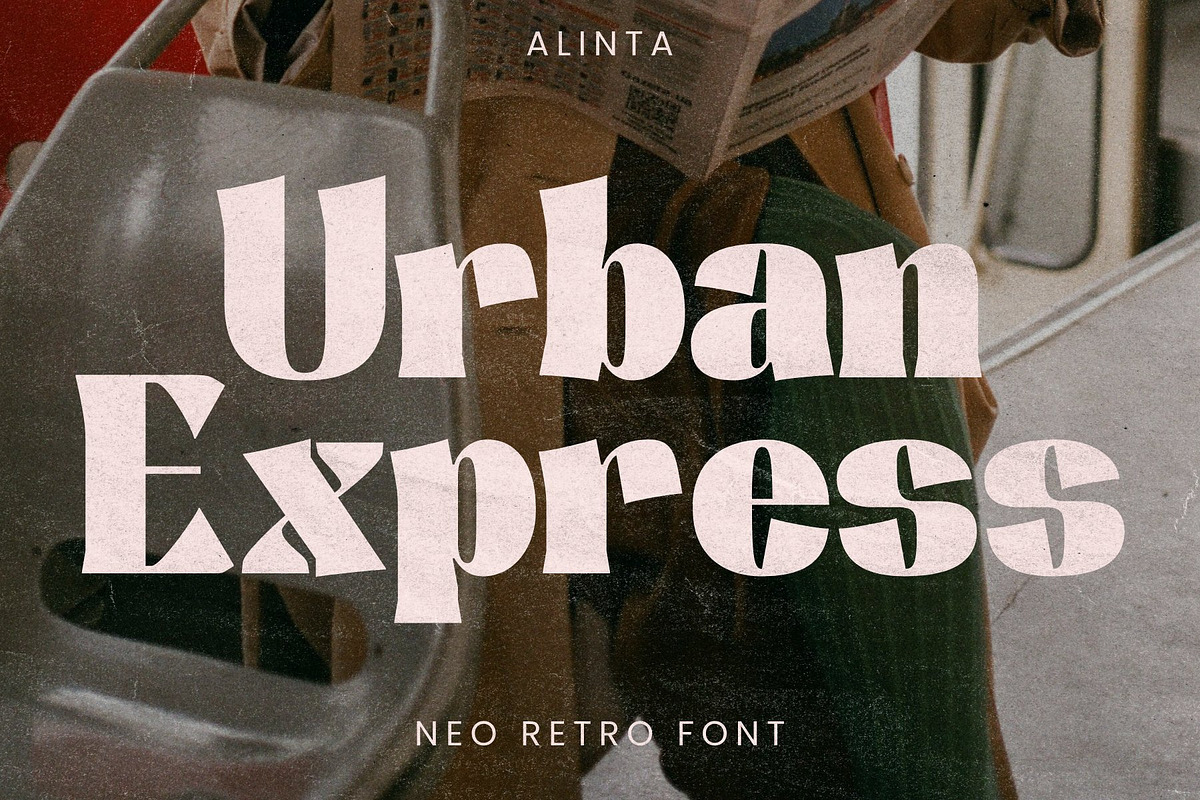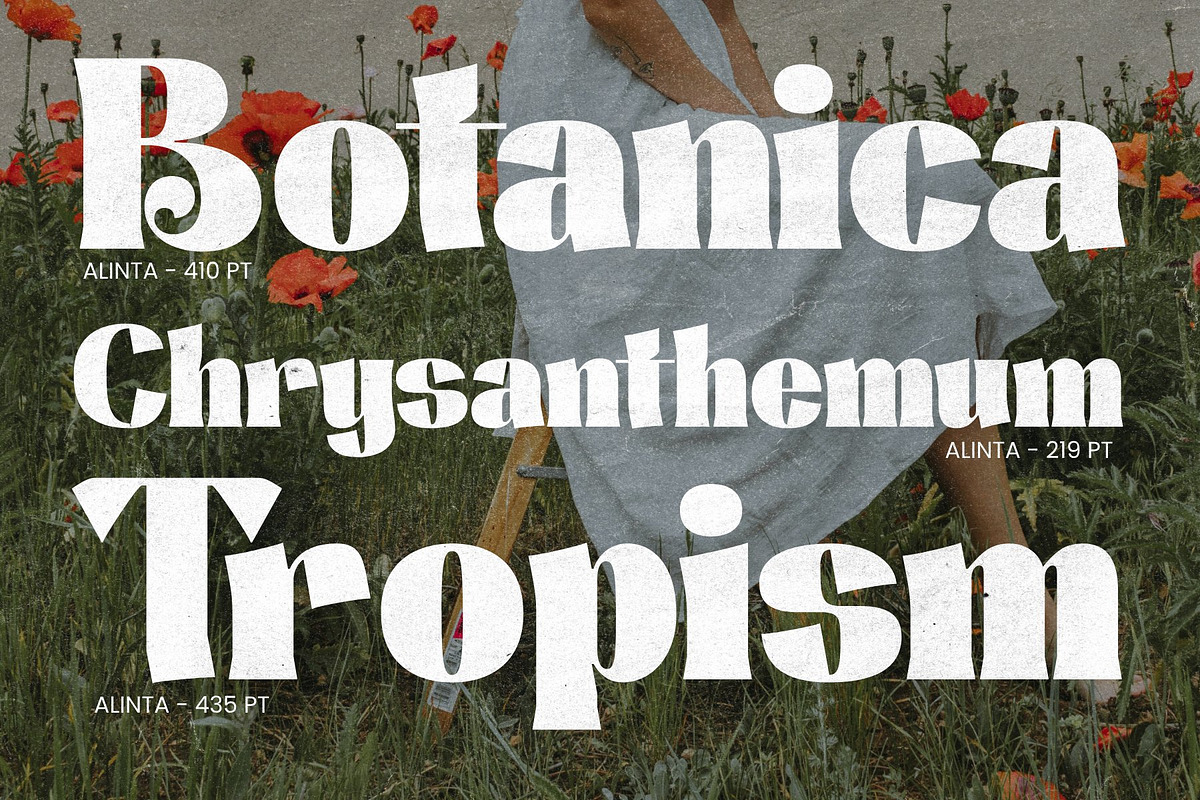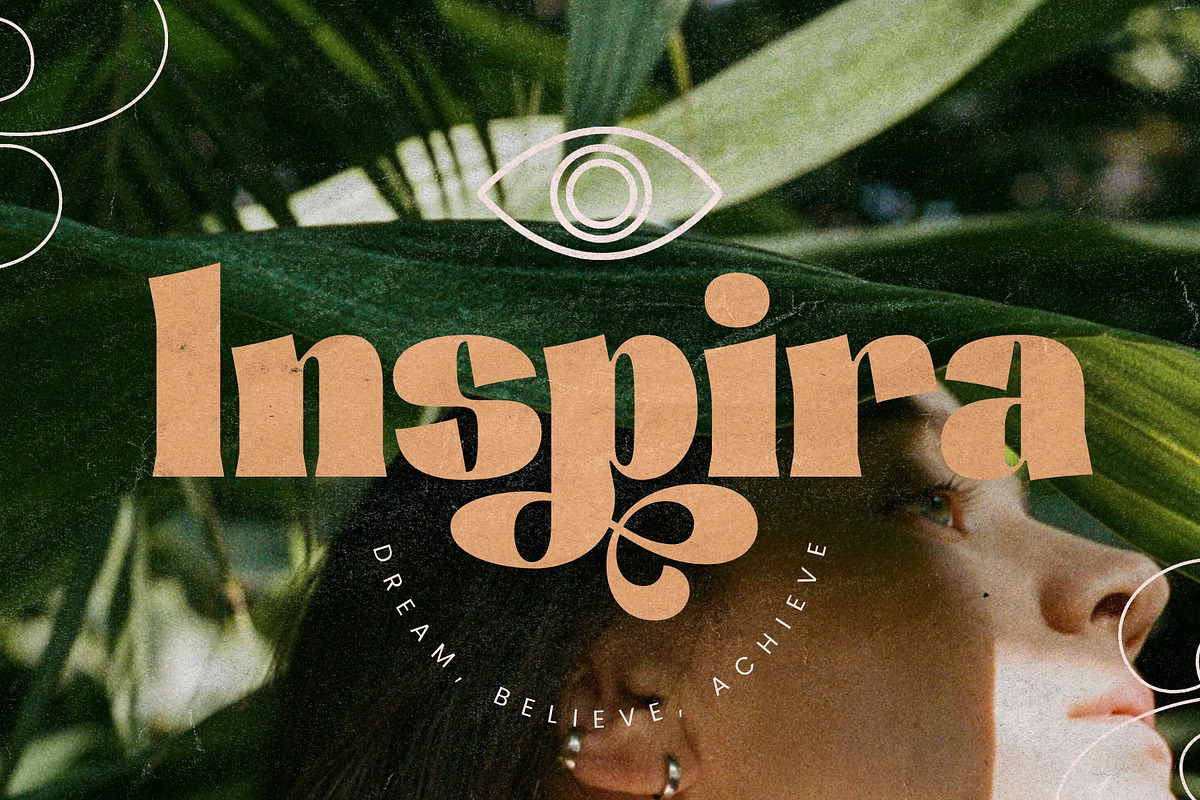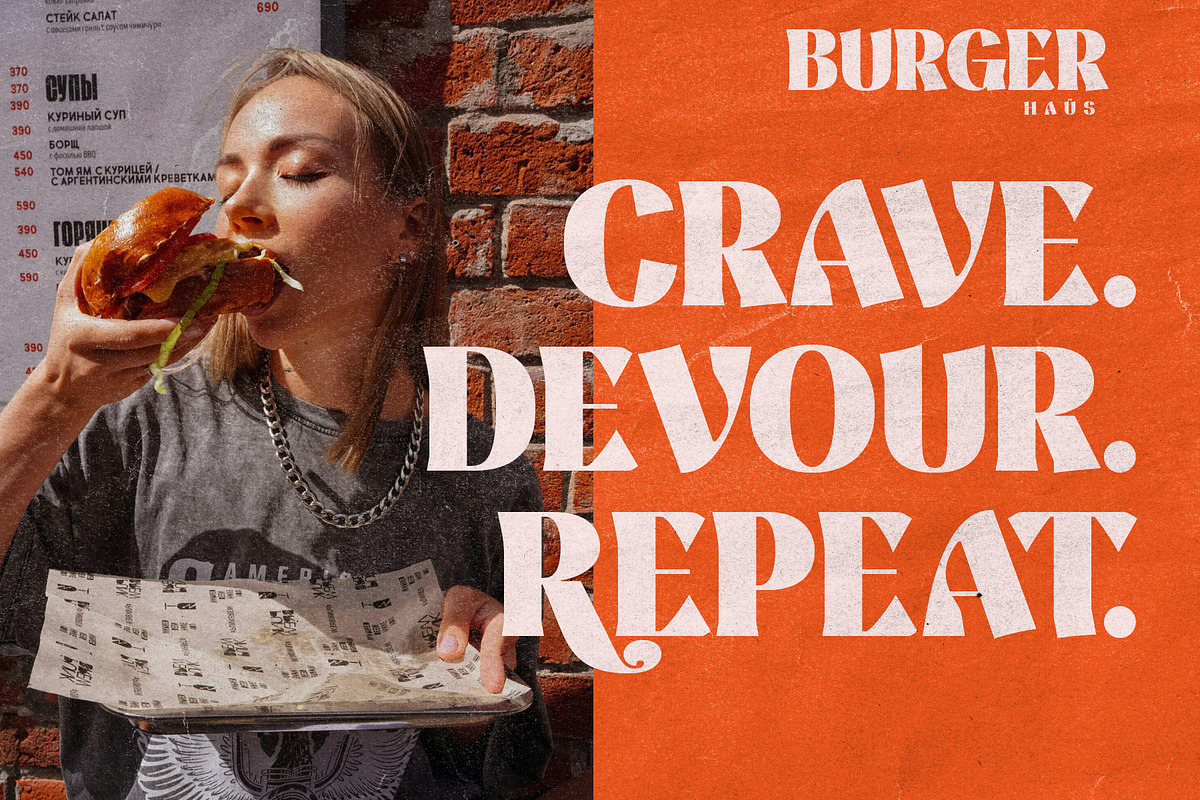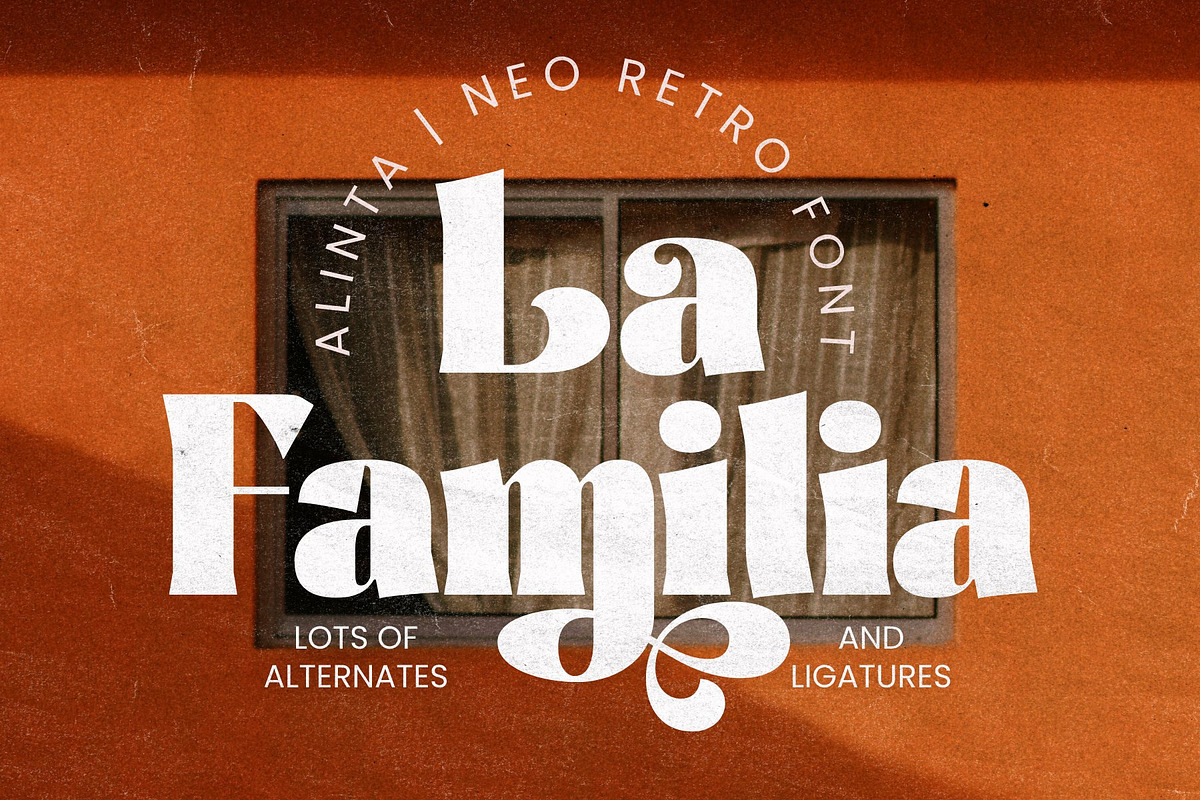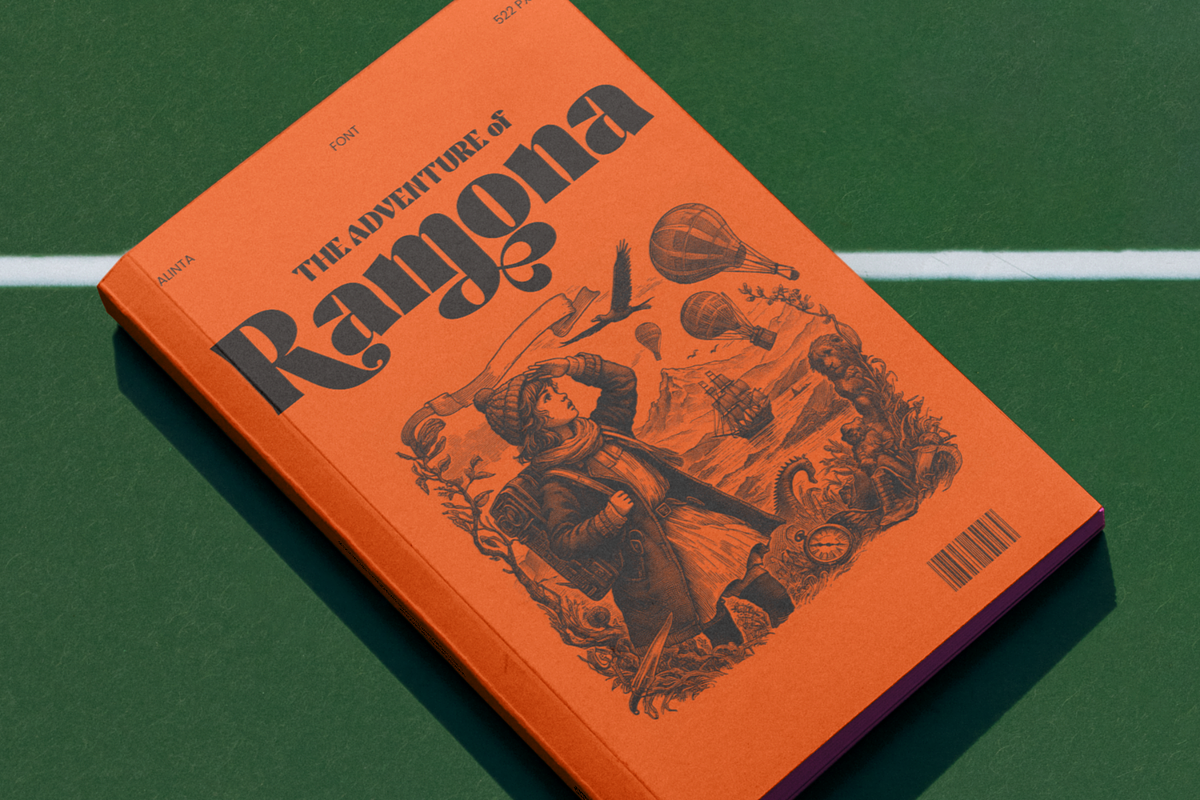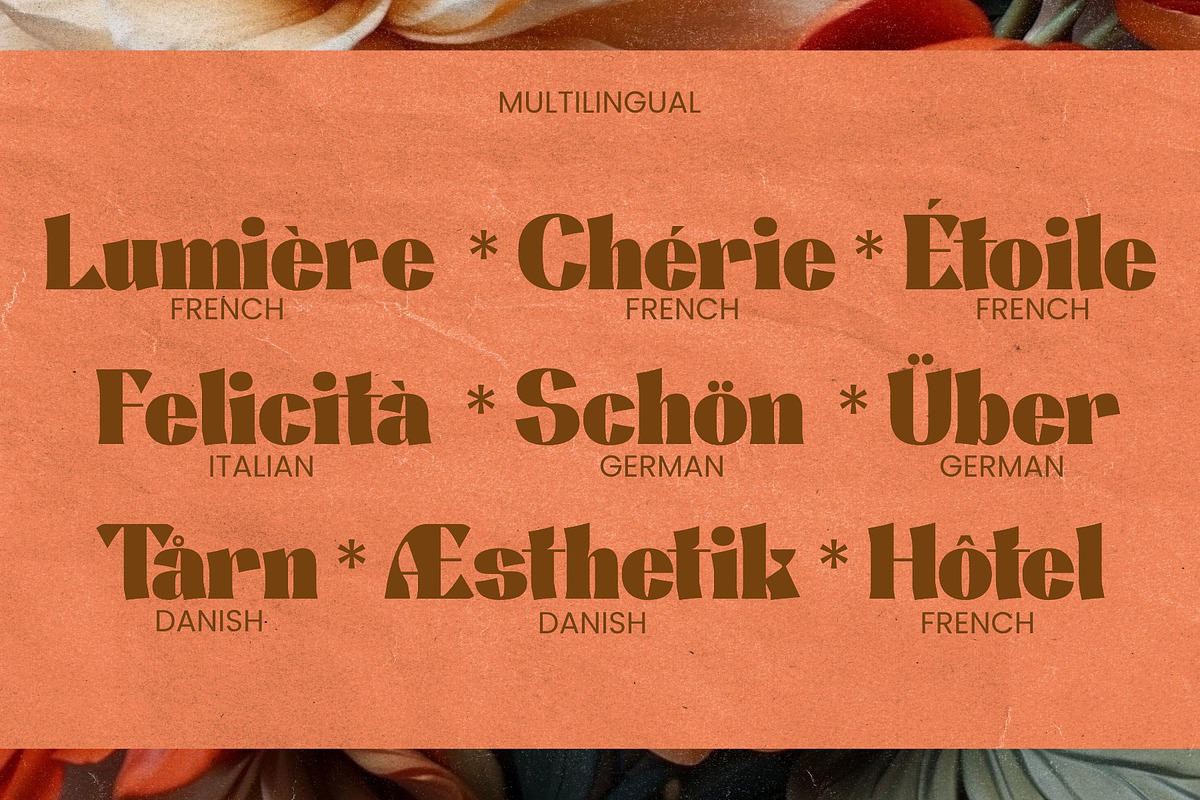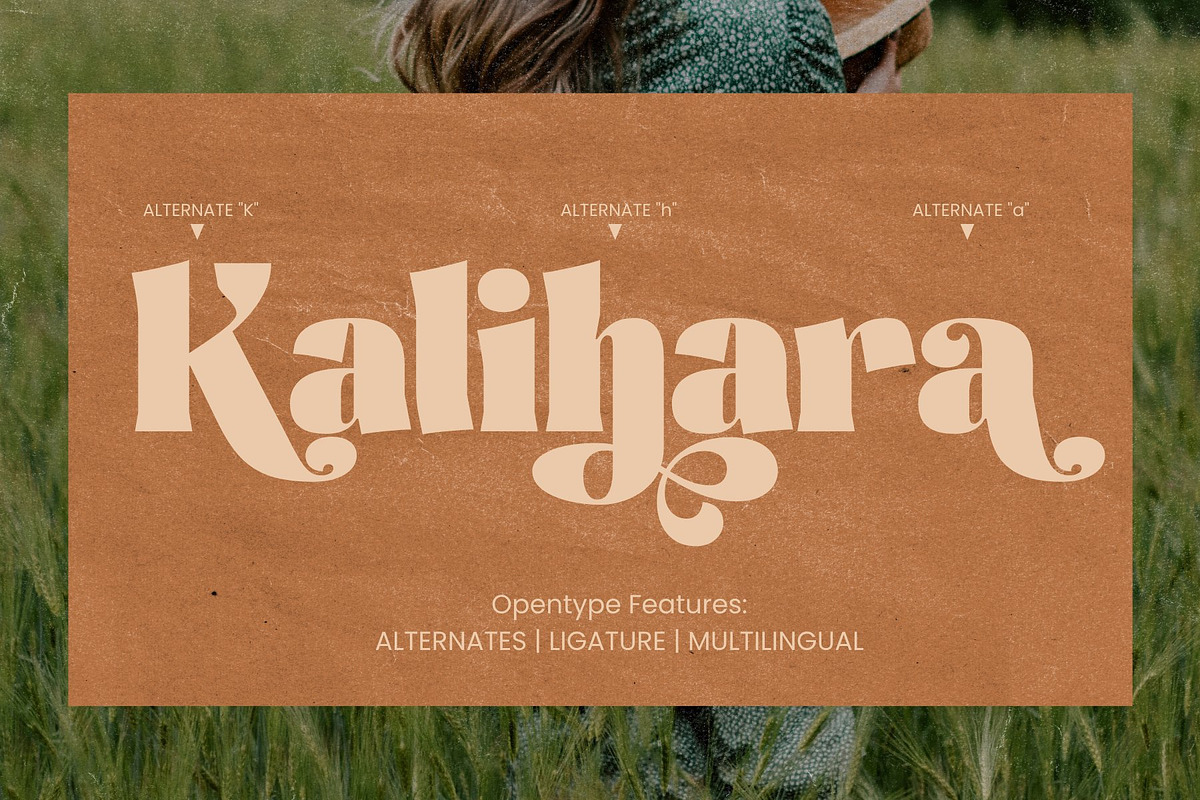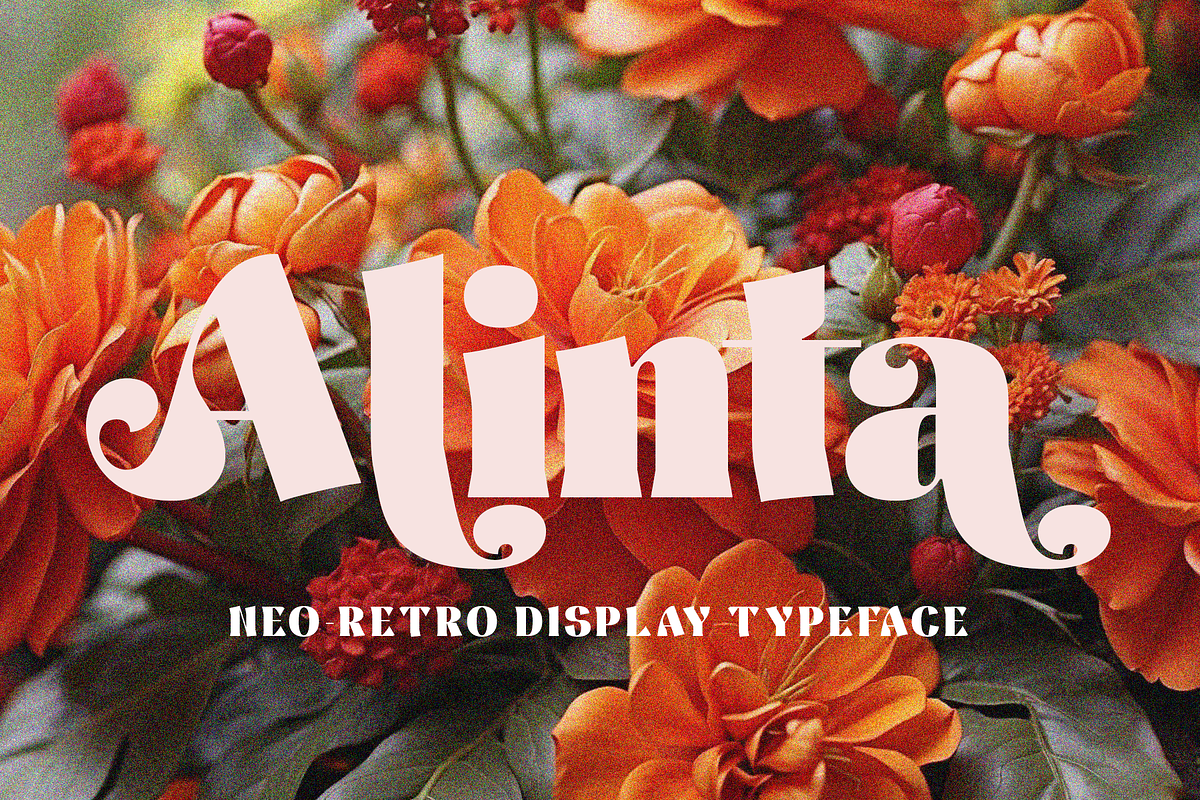
Alinta - Neo Retro Display Typeface
Alinta is a bold neo retro display typeface that blends modern and classic aesthetics.
It includes a number of creative ligatures to help give your work a unique flair.
Alinta is perfect for your next logo design project, ad campaign, packaging design or anything else that requires a striking typeface.